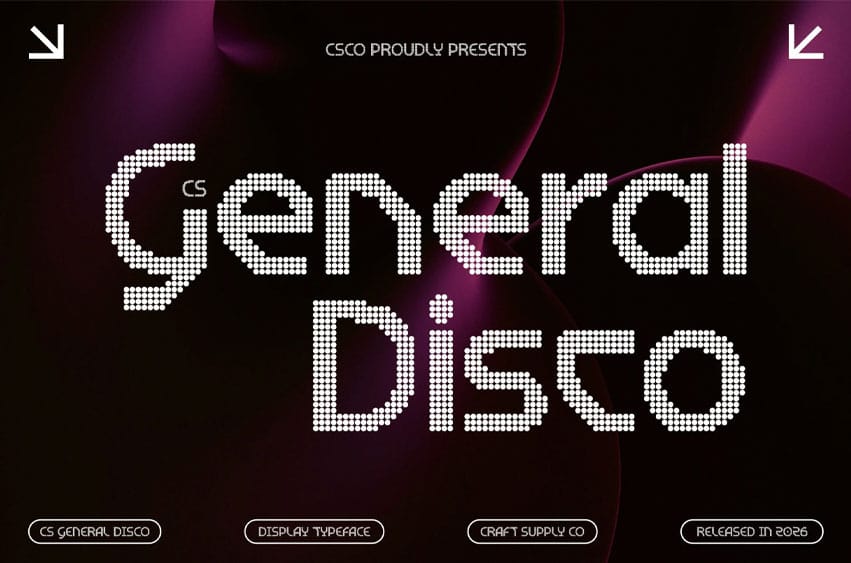
CS General Disco Font Futuristic Techno Font with Sharp Disco Geometry Futuristic Techno Display Font with Disco Power This is a futuristic techno display font built to express speed, precision, and digital authority, infused with a subtle disco-era futurism. Combining sharp angular geometry with bold techno structure, this font delivers a high-energy look that feels aggressive, confident, and rhythmically charged like neon lights and electronic beats colliding.
Sharp Edges with Geometric Disco Precision Every character is constructed from clean geometric forms and crisp, angular edges. This sharp construction creates a mechanical yet dynamic rhythm, echoing the visual language of late 70s–early 80s sci-fi and electronic design. The result is a commanding display font that feels structured, intense, and instantly eye-catching.
Tech-Driven Style with Retro-Futuristic Attitude This font thrives in technology-focused, cyber-inspired, and sci-fi environments. Its disco-futuristic aesthetic aligns perfectly with video game titles, digital interfaces, cyber visuals, and virtual worlds communicating innovation, control, and forward momentum with a nostalgic futuristic twist.
Versatile for Entertainment, Gaming, and Bold Branding Designed for impact and flexibility, this font performs powerfully across movie titles, promotional posters, gaming logos, UI headers, and futuristic branding. It maintains strong readability while projecting a bold techno-disco identity perfect for designs that demand sharp visuals, modern energy, and high-impact presence.